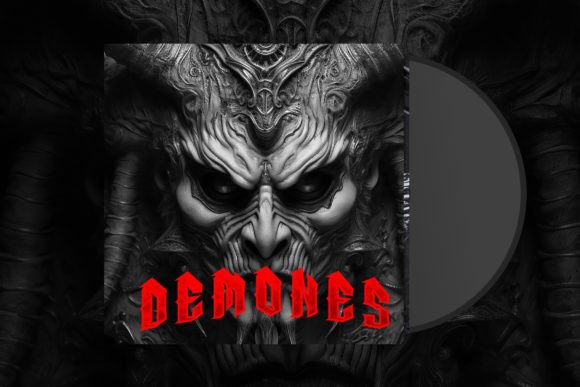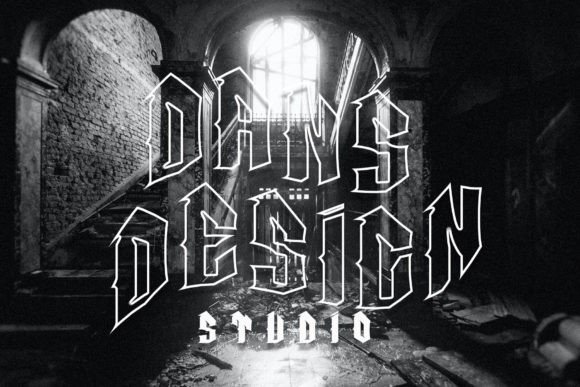
Introduction to Death Dirty Font
As a designer, there’s nothing quite like the rush of finding the perfect font to elevate your project from ordinary to extraordinary. I still remember the thrill of stumbling upon a stunning, high-quality design resource that transformed my creative vision into a reality. It was like striking gold – the right combination of style, sophistication, and flair that made my project truly shine.
For those in the know, one such game-changing font is the Death Dirty Font. This bold and thick lettered blackletter font is a must-have for any serious designer looking to add some edge and personality to their creative project. With its striking, eye-catching design, Death Dirty Font is sure to make a lasting impression on your audience.
Whether you’re working on a high-profile campaign or a personal project, Death Dirty Font is a valuable addition to your design arsenal. Plus, with its transparent background, it’s easy to incorporate into any design – from print materials to digital assets. And the best part? You can download it for free, making it an accessible and valuable resource for designers of all levels.
Key Features of Death Dirty Font
- Unique Gothic-inspired design for a dark and mysterious feel
- Perfect for designing horror-themed posters, album covers, or other dark designs
- Ideal design resource for graphic designers, artists, and writers looking for a bold and edgy font
Honest Review: Death Dirty Font
I recently stumbled upon the Death Dirty Font, and I must say it’s a game-changer for any design enthusiast looking to add a touch of edginess to their creative project. The font is free to download, making it an excellent resource for designers on a budget.
- ✨ High-quality design: The Death Dirty Font is expertly crafted, with each letter and symbol meticulously designed to create a unique and eye-catching visual experience.
- ✨ Transparent background: This allows designers to easily integrate the font into their designs without worrying about background clutter.
- ✨ Versatile: The Death Dirty Font can be used in a variety of creative projects, from graphic design to digital art, making it an excellent addition to any design resource library.
However, I do have a few minor complaints: ⚠️ The font may not be suitable for all design projects, as it’s quite bold and edgy, which might not appeal to all audiences. Additionally, the font’s size can sometimes appear inconsistent, depending on the context in which it’s used.
Overall, I’m impressed with the Death Dirty Font, and I would definitely recommend it to designers looking to add some grit and personality to their work. It’s a high-quality design resource that’s sure to make a statement in any creative project.